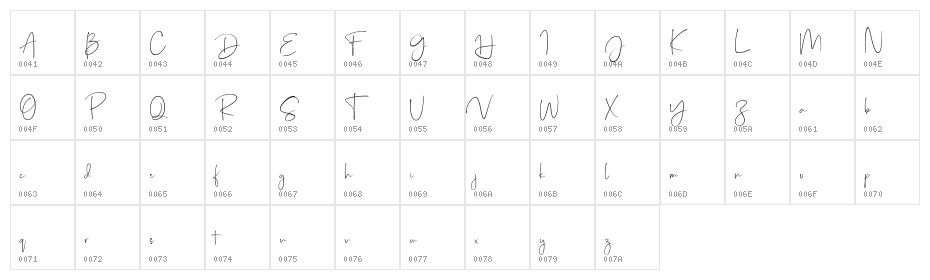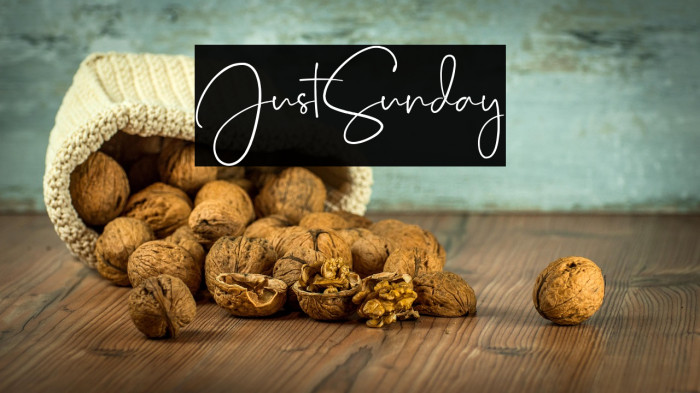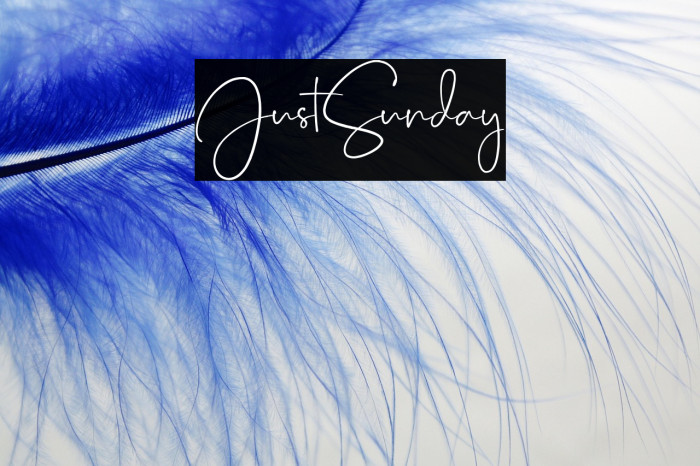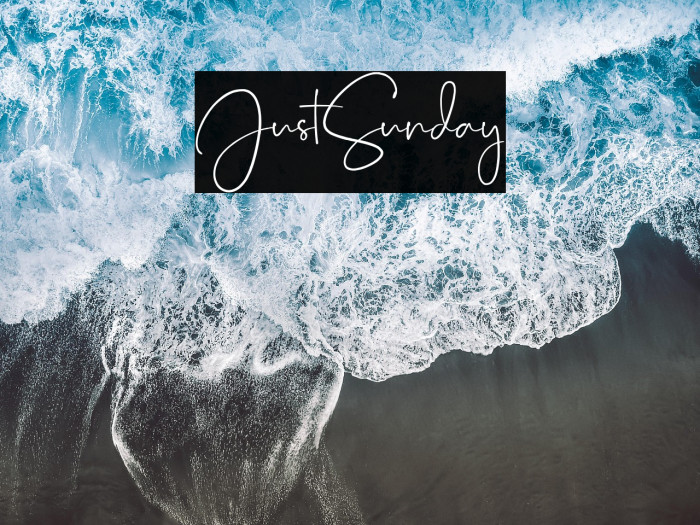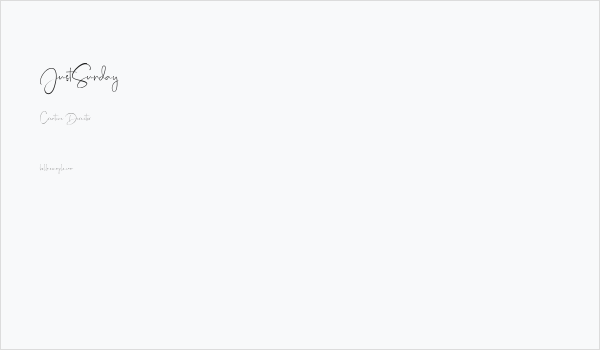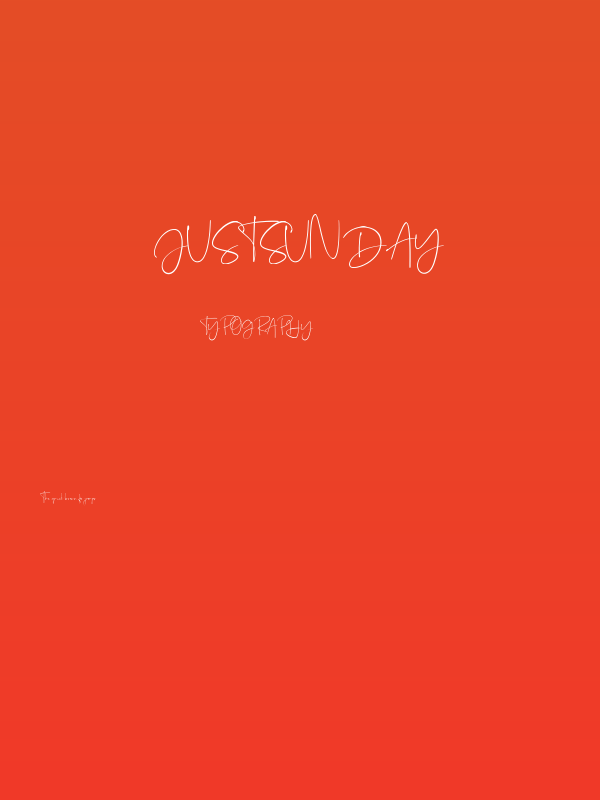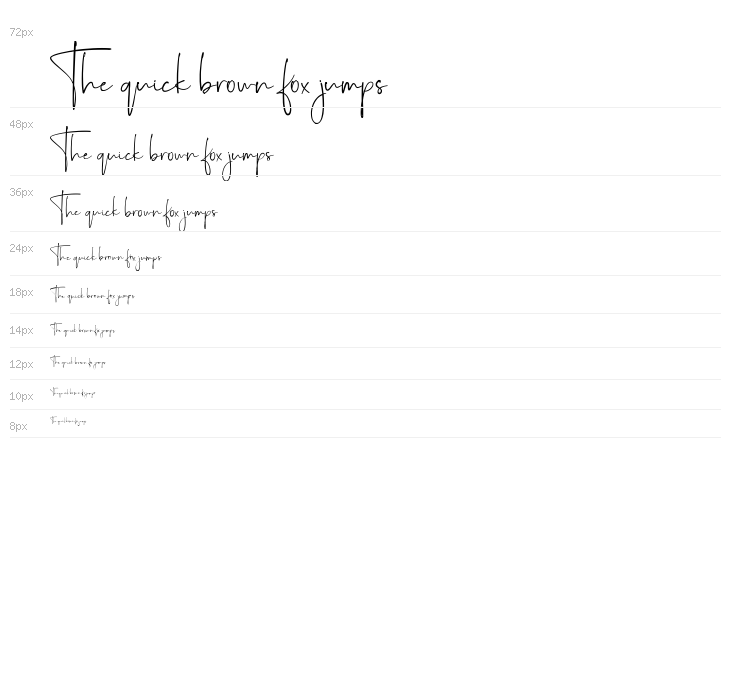
JustSunday Font
JustSunday Description
This font features a unique and artistic handwritten style, characterized by its flowing and interconnected letterforms. The strokes are thin and exhibit a casual, yet elegant appearance, making it suitable for creative and expressive designs. The uppercase and lowercase letters maintain a consistent style, with a playful and whimsical touch. The font's design is airy and light, providing a sense of movement and dynamism. Its distinctive character makes it ideal for projects that require a personal and artistic flair.
| Proposed Projects | Ideal for greeting cards, invitations, personal branding, and artistic projects. |